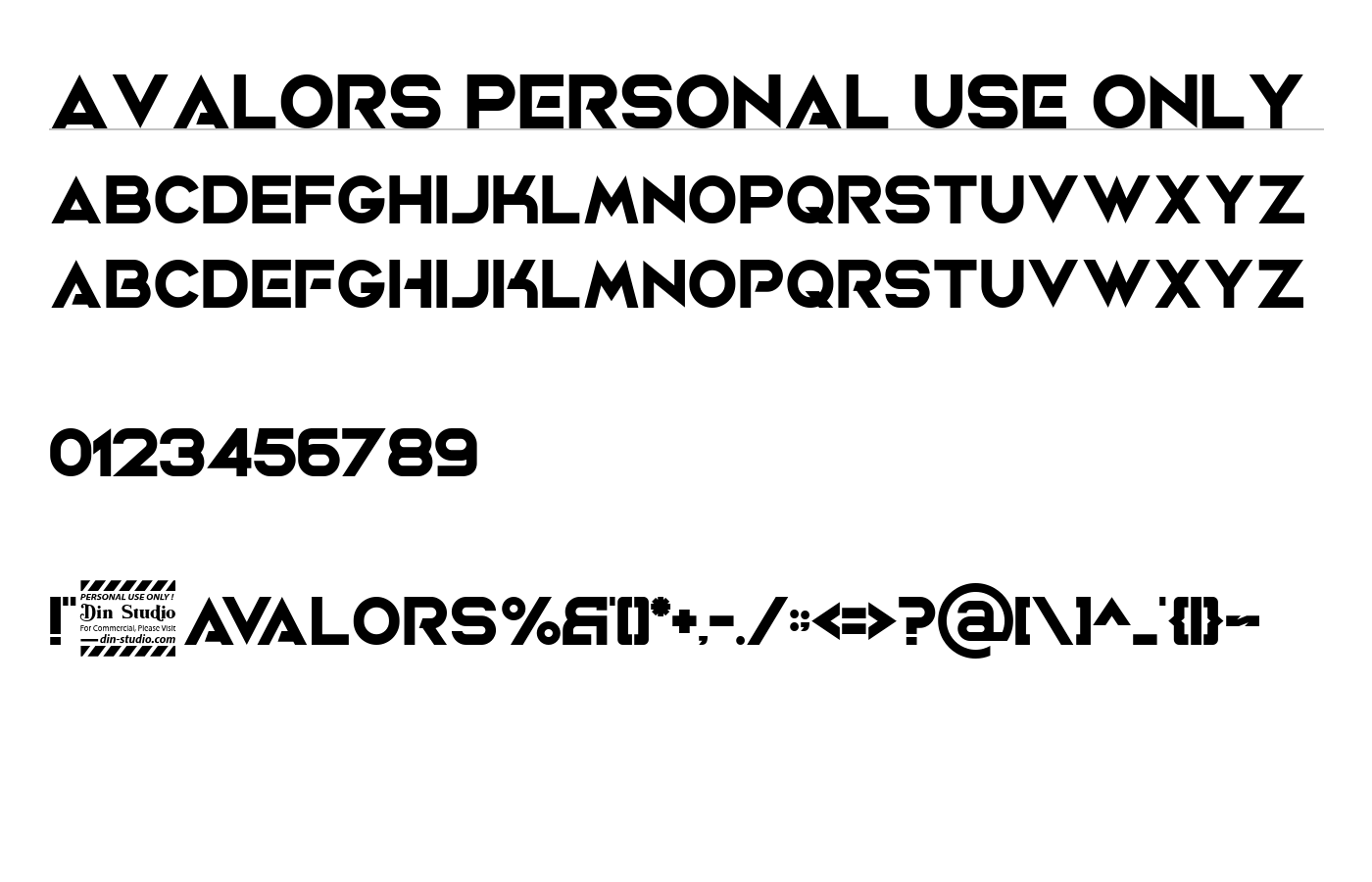
Avalors is a bold, geometric sans serif font with a modern and edgy style, featuring sharp angles and strong contrast in its letter shapes. Its uppercase-only design and tightly spaced forms give it a striking, futuristic feel, making it ideal for impactful logo designs, headlines, and branding that seek a contemporary and confident look. This font works best where bold visual presence and a distinct, technical flair are desired.